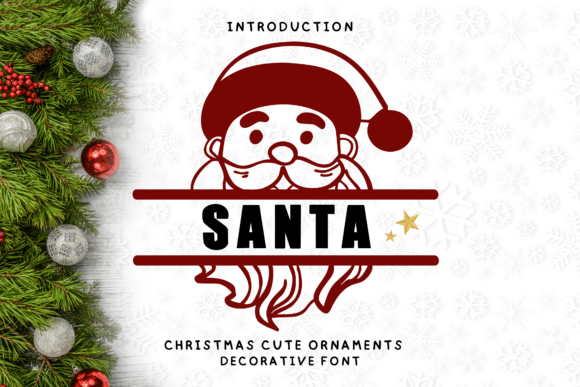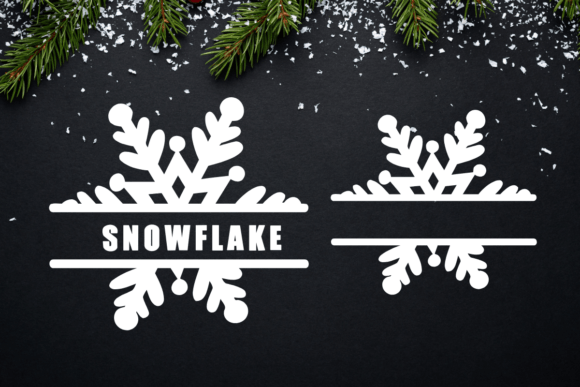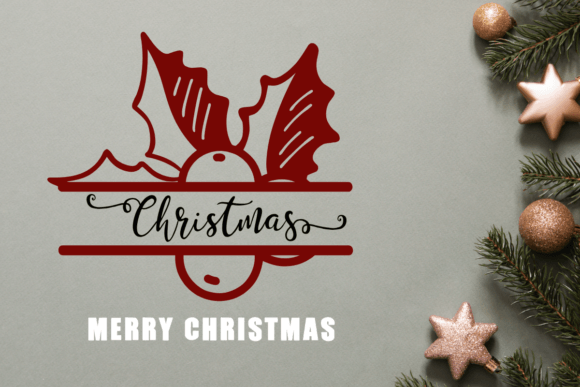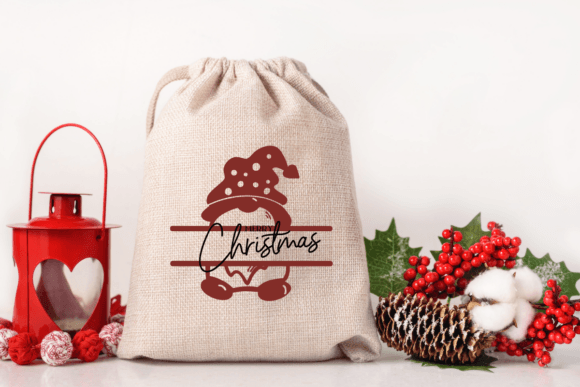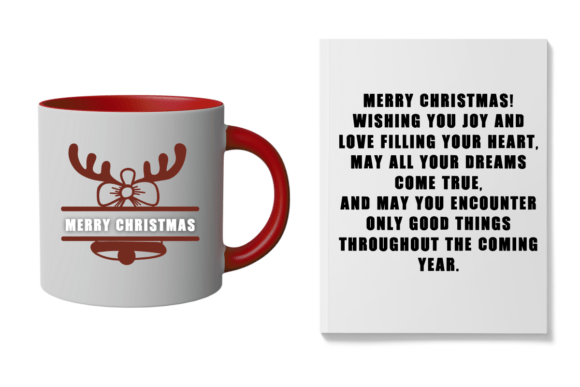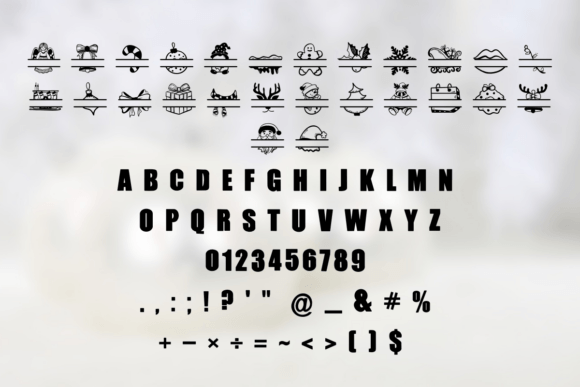
Unlock the Magic of Christmas Cute Ornaments Font
Do you remember the joy of decorating your Christmas tree as a child, carefully selecting the perfect ornaments to make it shine? That same sense of wonder and excitement can now be captured in your creative projects with the Christmas Cute Ornaments Font. This delightful font is more than just a decorative element – it’s a powerful tool that can add a touch of whimsy and charm to any design.
Whether you’re a seasoned designer or a creative enthusiast, the Christmas Cute Ornaments Font offers endless possibilities for adding a festive twist to your work. With its versatility and playful charm, this font is sure to become a treasured addition to your design toolkit. Get ready to unleash your creativity and spread holiday cheer with the Christmas Cute Ornaments Font!
Key Features of Christmas Cute Ornaments Font
- Unique Characteristics: This font is designed to resemble cute Christmas ornaments, perfect for adding a festive touch to your designs. The font features a playful, whimsical style with intricate details and ornaments.
- Font Style: Christmas Cute Ornaments Font is a display font, ideal for use as a headline or title. It’s perfect for creating eye-catching and festive designs, such as Christmas cards, gift tags, and social media graphics.
- Number of Characters: This font includes a wide range of characters, including uppercase and lowercase letters, numbers, and punctuation marks, making it suitable for everyday use.
Review of Christmas Cute Ornaments Font
I recently had the chance to work with the “Christmas Cute Ornaments Font” and I must say, it’s a delightful addition to any holiday-themed design. ✨ The font’s playful, hand-drawn style is reminiscent of traditional Christmas ornaments, making it perfect for creating a warm and cozy atmosphere.
The font is highly customizable, allowing designers to adjust the size, color, and even add subtle textures to give it a more realistic look. ✨ I also appreciate the variety of ornaments included in the font, which range from classic balls to more modern shapes.
While the “Christmas Cute Ornaments Font” is a great addition to any design, it’s not without its limitations. ⚠️ One of the main concerns I have is the font’s complexity. With so many ornaments and customization options, it can be overwhelming to choose the right one for your design.
Additionally, the font may not be suitable for designs that require a more minimalist approach. ⚠️ The ornament style can sometimes feel cluttered or busy, so it’s essential to use it judiciously.
Overall, I think the “Christmas Cute Ornaments Font” is a great choice for designers looking to add a festive touch to their holiday designs. While it may have some limitations, its unique style and high level of customization make it a valuable addition to any design toolkit.
- Playful, hand-drawn style
- Variety of ornaments included
- Can be used for holiday-themed designs
- May not be suitable for minimalist designs
Christmas Cute Ornaments Font Practical Application Guide